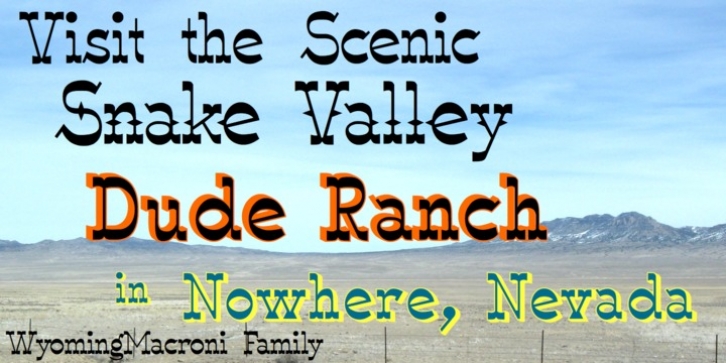
Wyoming Macroni was designed by Robert Schenk and published by Ingrimayne Type. Wyoming Macroni contains 6 styles and family package options.
Wyoming Macroni is the split-serif (or Tuscan) version of the Wyoming series. The Pegged version adds a horizontal spike through the middle of the stems, which has been a popular variation of this style.
Included in the family are two shadowed versions. The ShadowedInside styles can be used in layers with the Shadowed styles to easily create two-colored letters.
· Wyoming Macroni
· Wyoming Macroni Pegged
· Wyoming Macroni Shadowed
· Wyoming Macroni Shadow Right Inside
· Wyoming Macroni Shadowed Right
· Wyoming Macroni Shadowed Inside